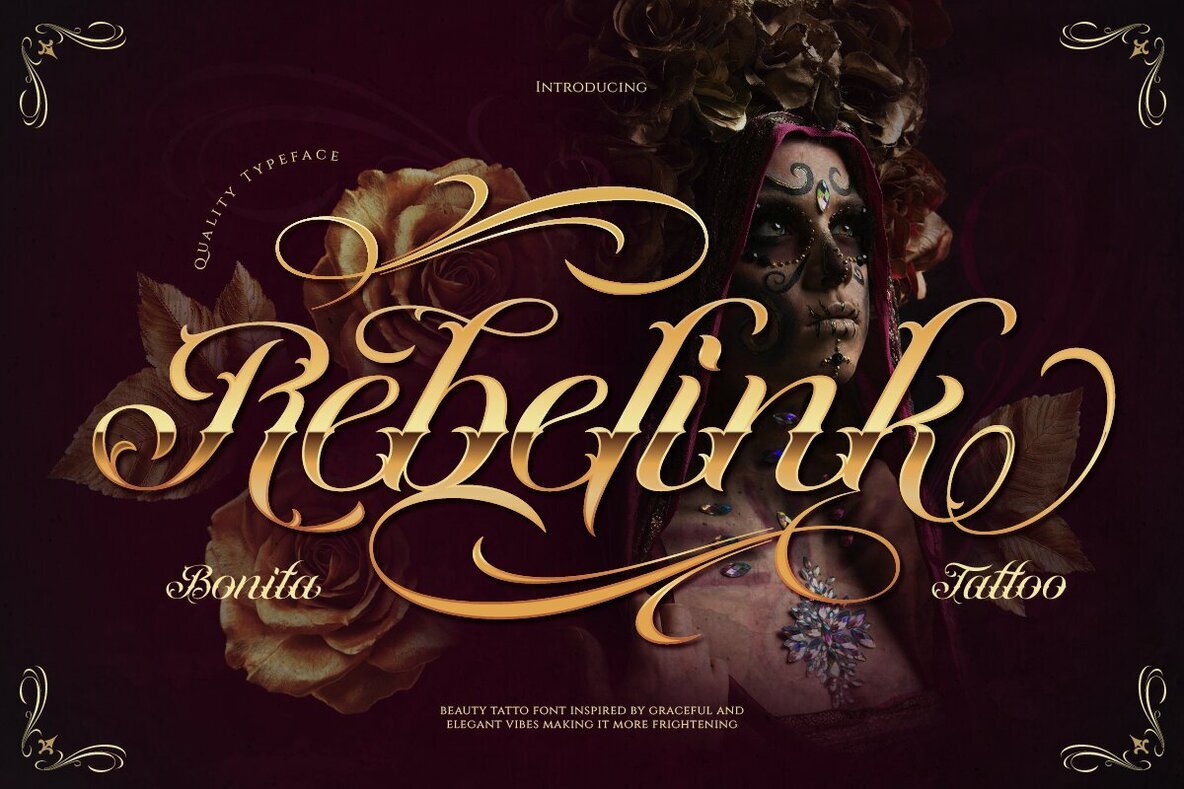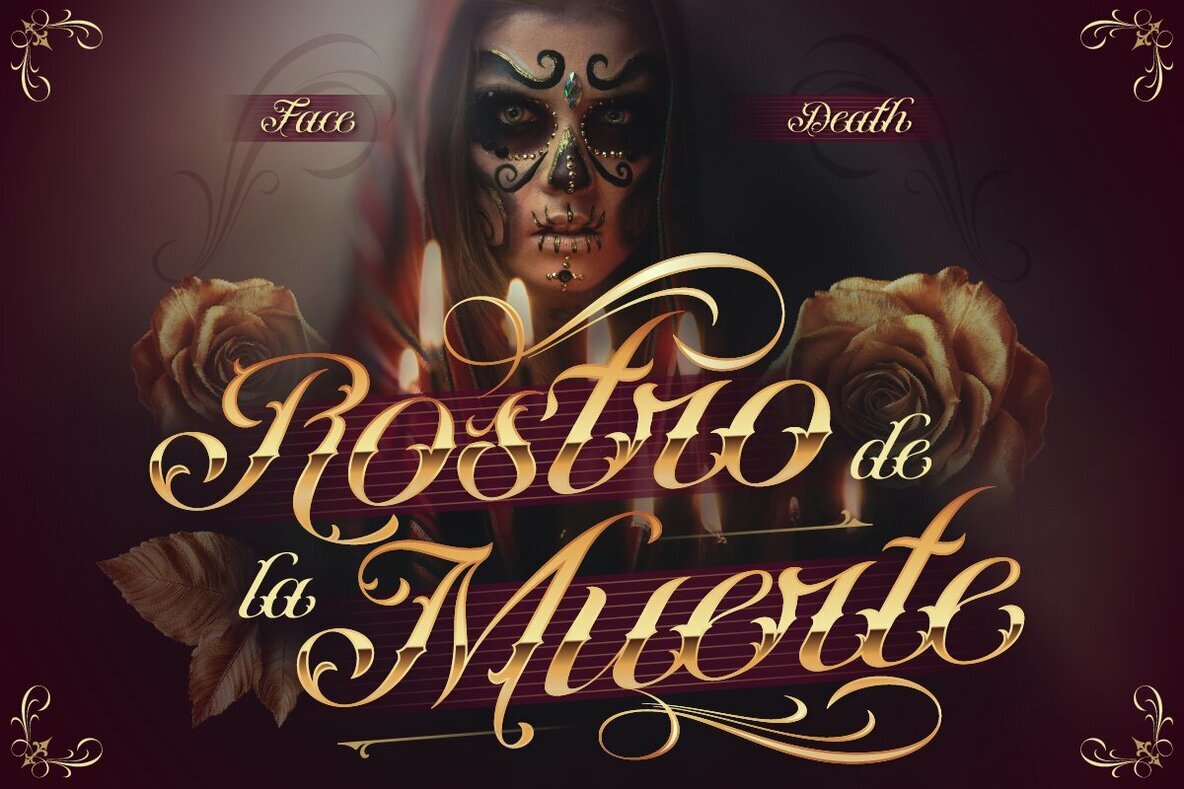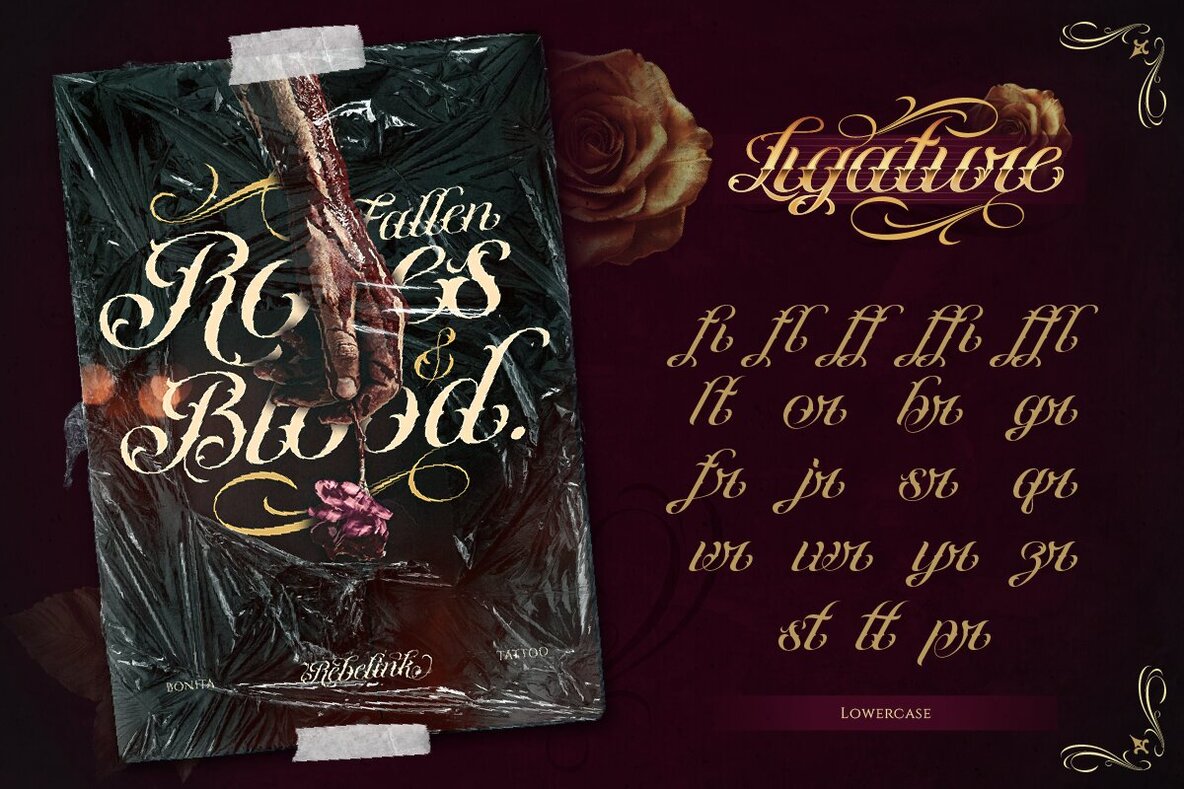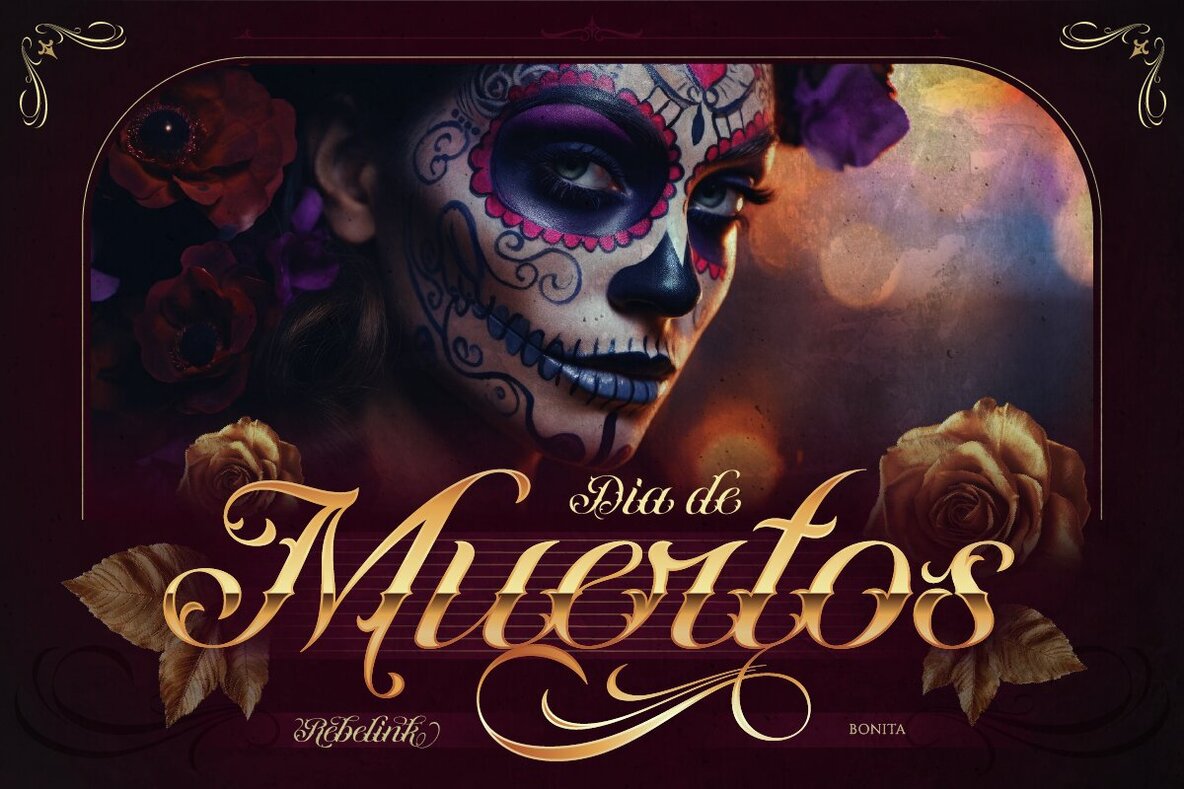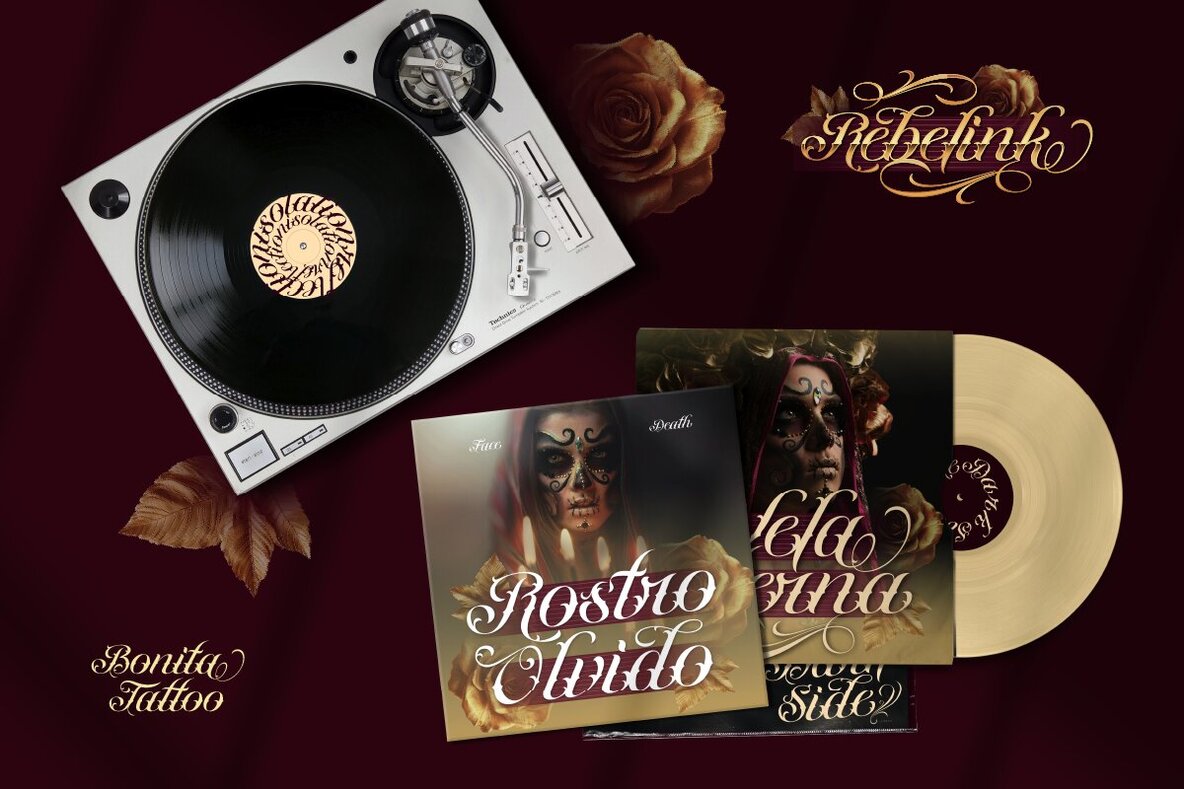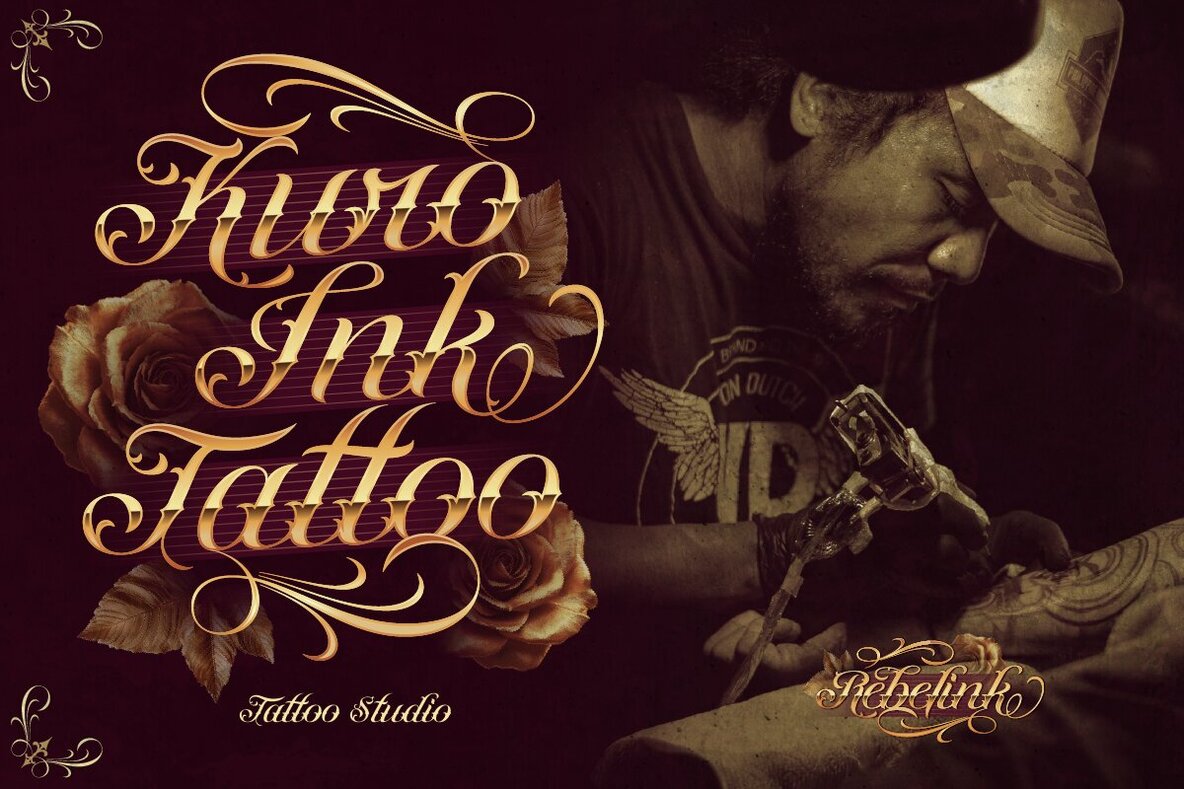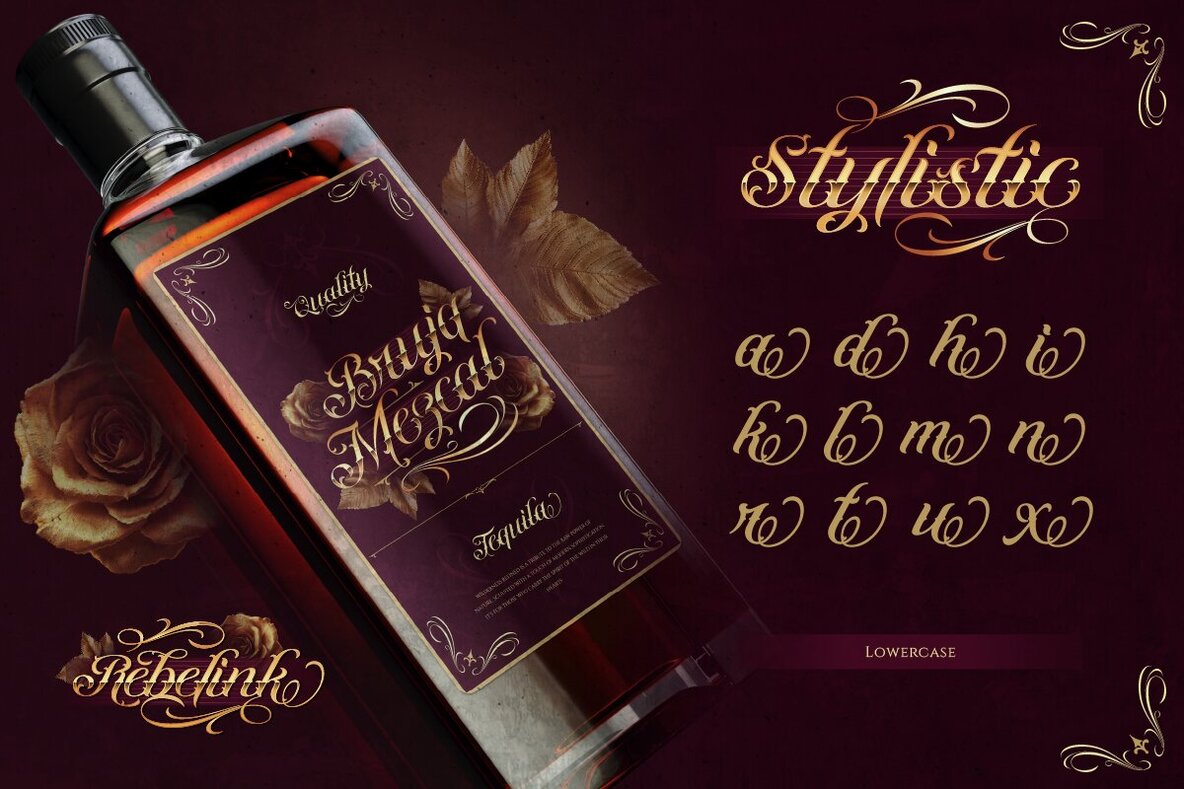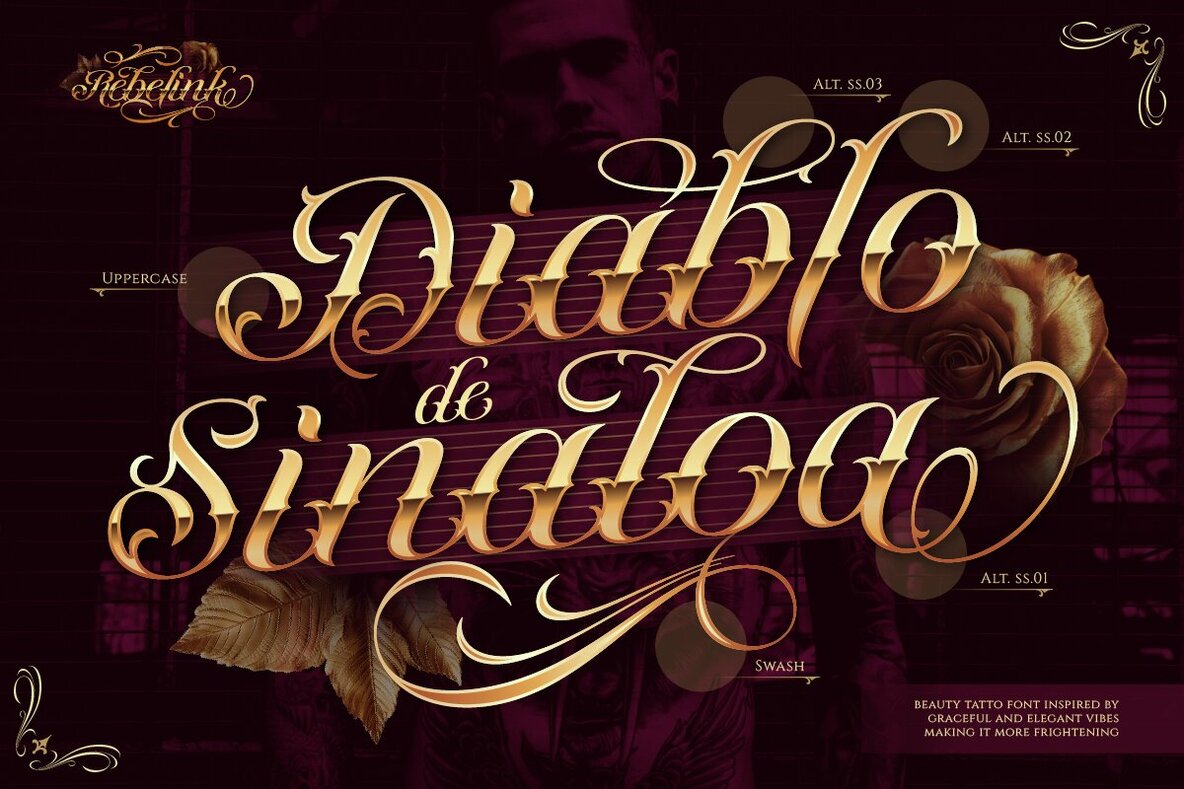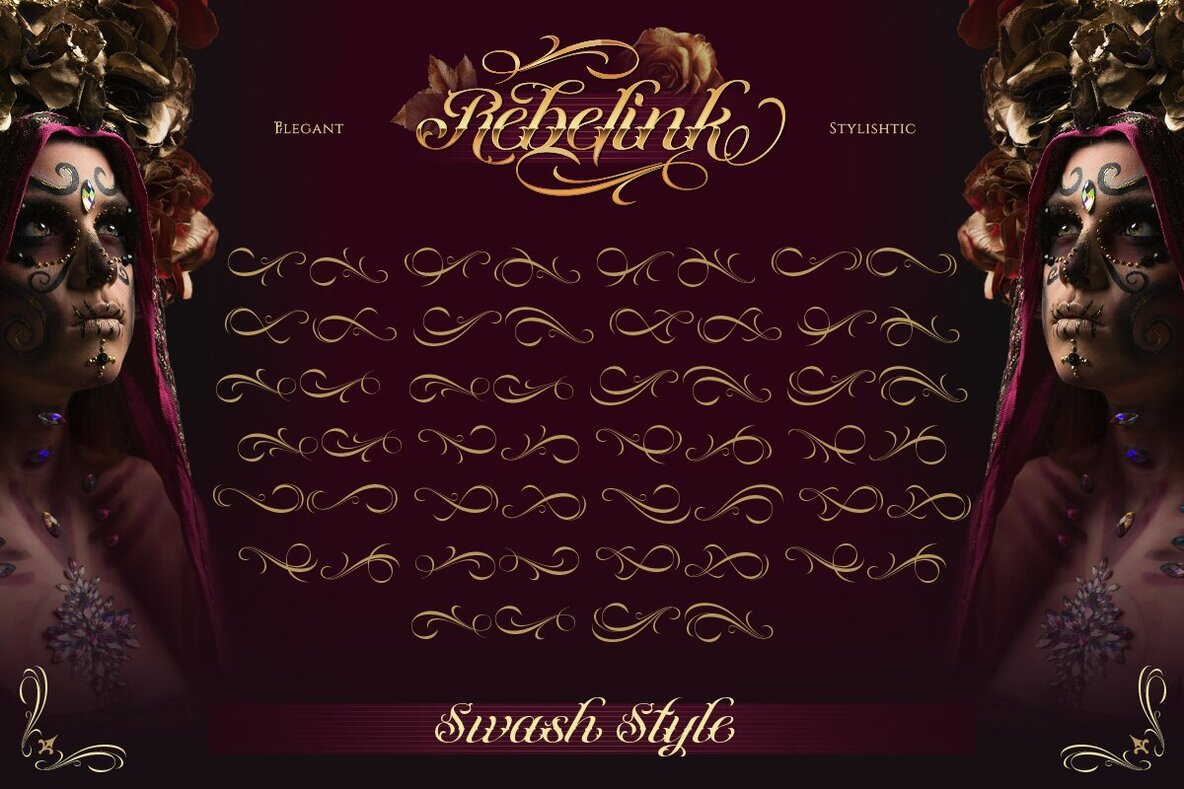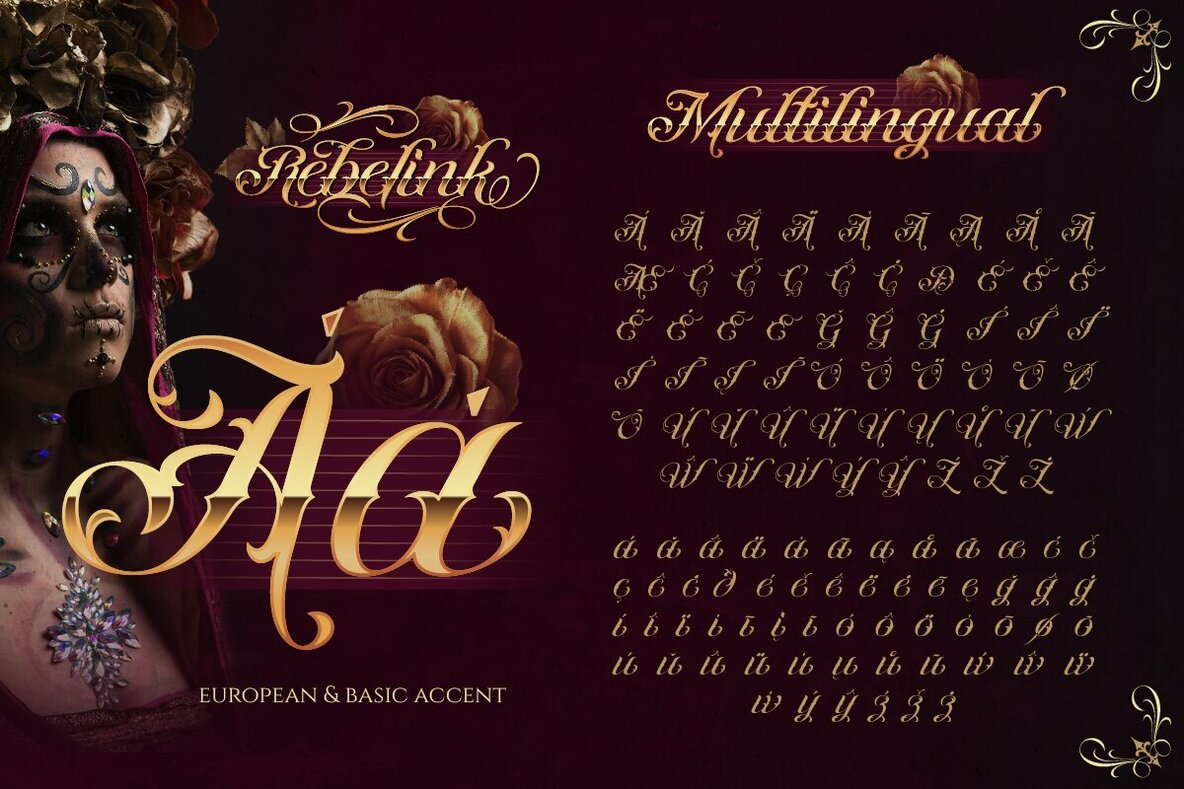
Rebelink Font
Rebelink Regular
Rebelink Swash
Explore the artistic allure of Rebelink, a script tattoo font that combines blackletter and baroque elements. Its flowing letterforms, sharp stroke contrasts, and dramatic swashes create a theatrical and elegant presence. Rebelink offers a multitude of stylistic alternates, making customization effortless for your creative endeavors.Rebelink: The Script Tattoo Font with Dramatic Flair